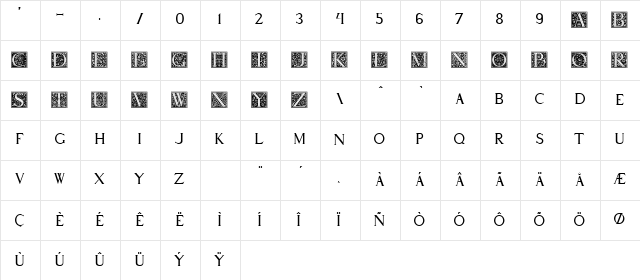
Pompei Regular
| Foundry | Yves Michel |
| Designer | Yves Michel |
Design Context for Pompei Typeface
Pompei takes a measured approach to typography — its balanced proportions and neutral character make it a reliable workhorse for both digital and print work.